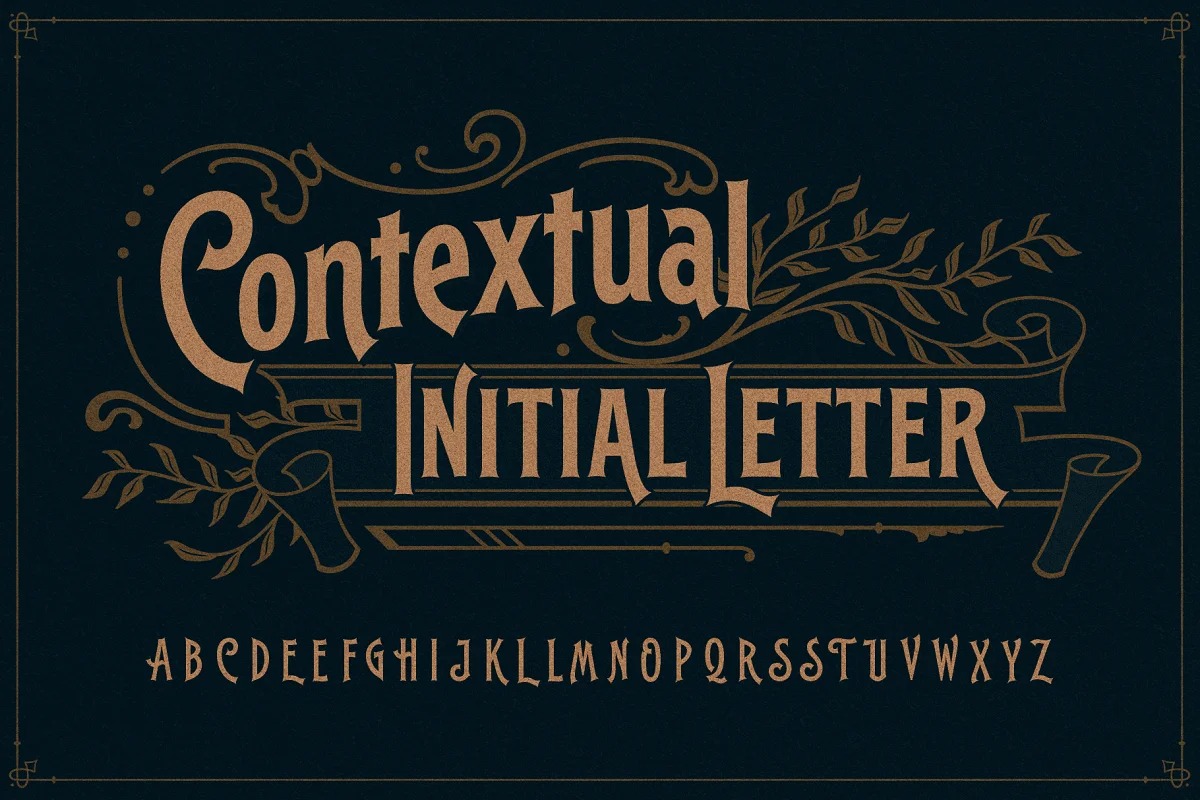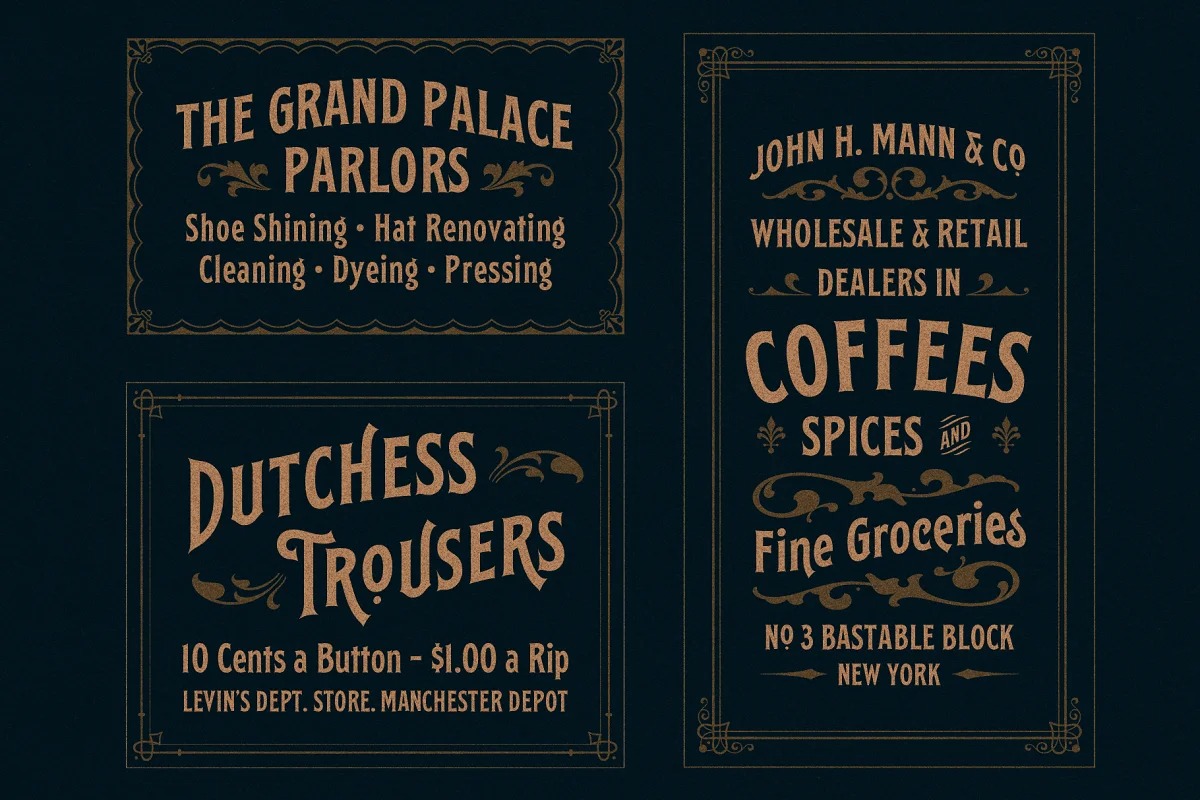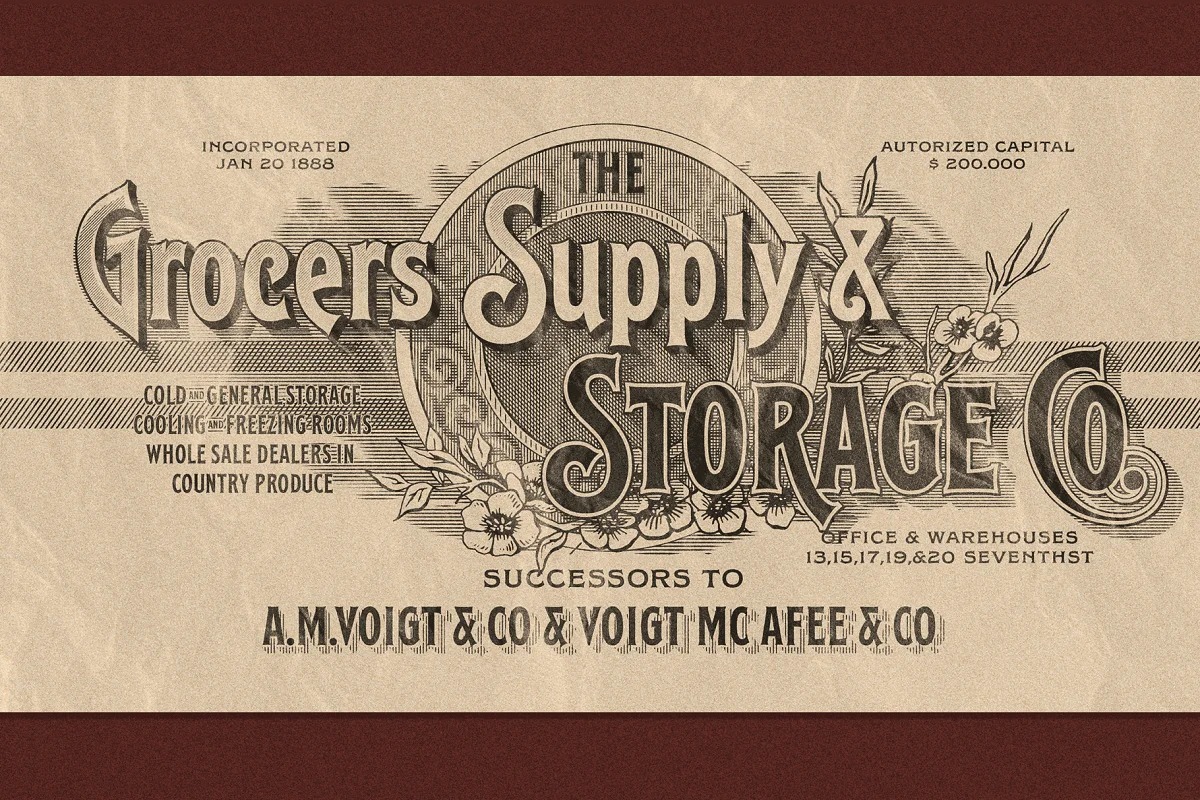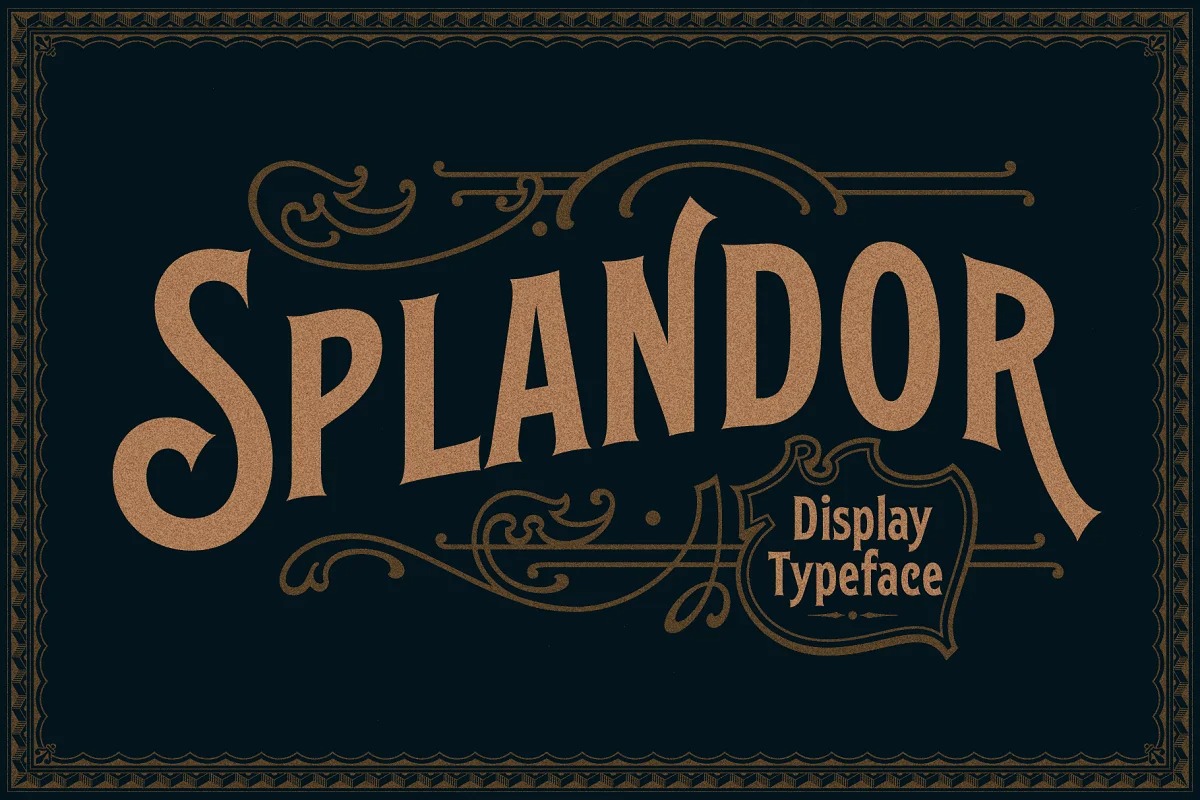
EFCO Splandor Display Font
It’s a vintage serif display font with elegant style. inspired by hanging sign typeface by the late 9th century , this font is made to bring stand out statement for your designs project. This font was created for display needs, such as headings, signage, posters, t-shirts, covers, labels, logos, etc